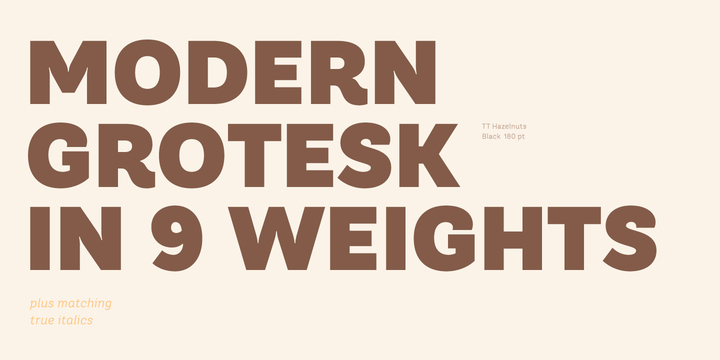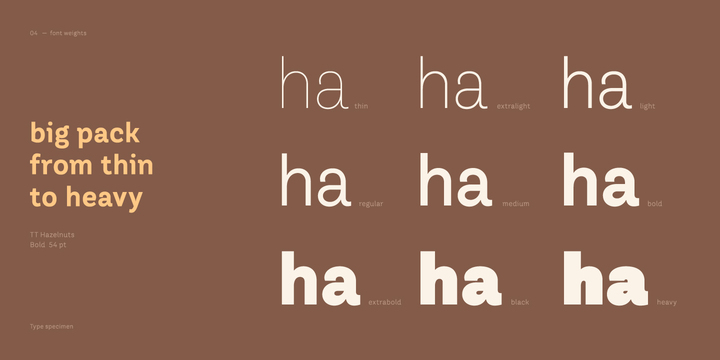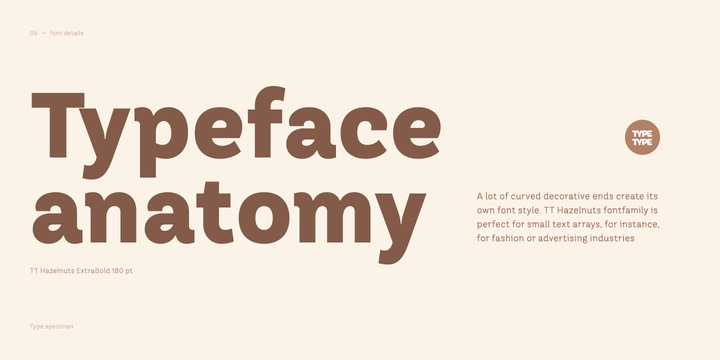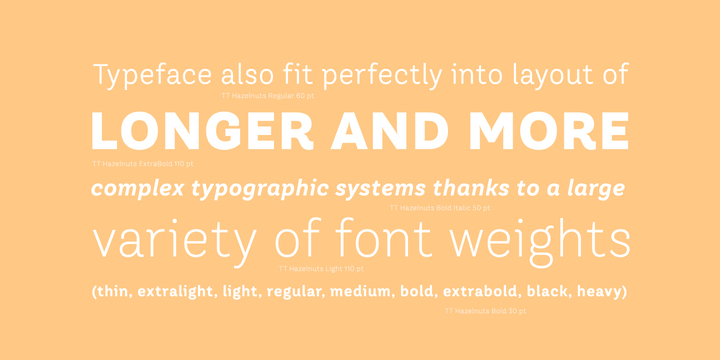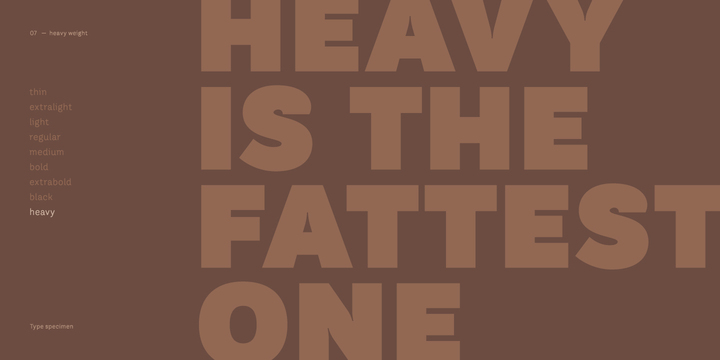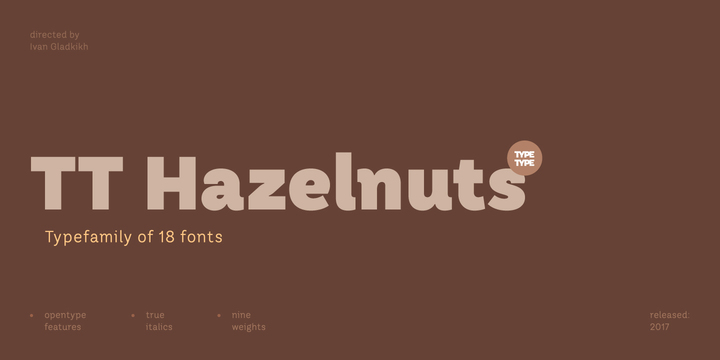
TT Hazelnuts Font Family
TT Hazelnuts is a display sans-serif fontfamily containing a set of elegant and delicate decorative elements. Initially the family was designed for highly specialized areas, but we’ve decided to extend the number of typefaces and to make the family more universal. Despite its geometric essence, TT Hazelnuts reflects a touch of human hand – you can take a calligraphic tool and, by turning it, draw pretty much the whole font.